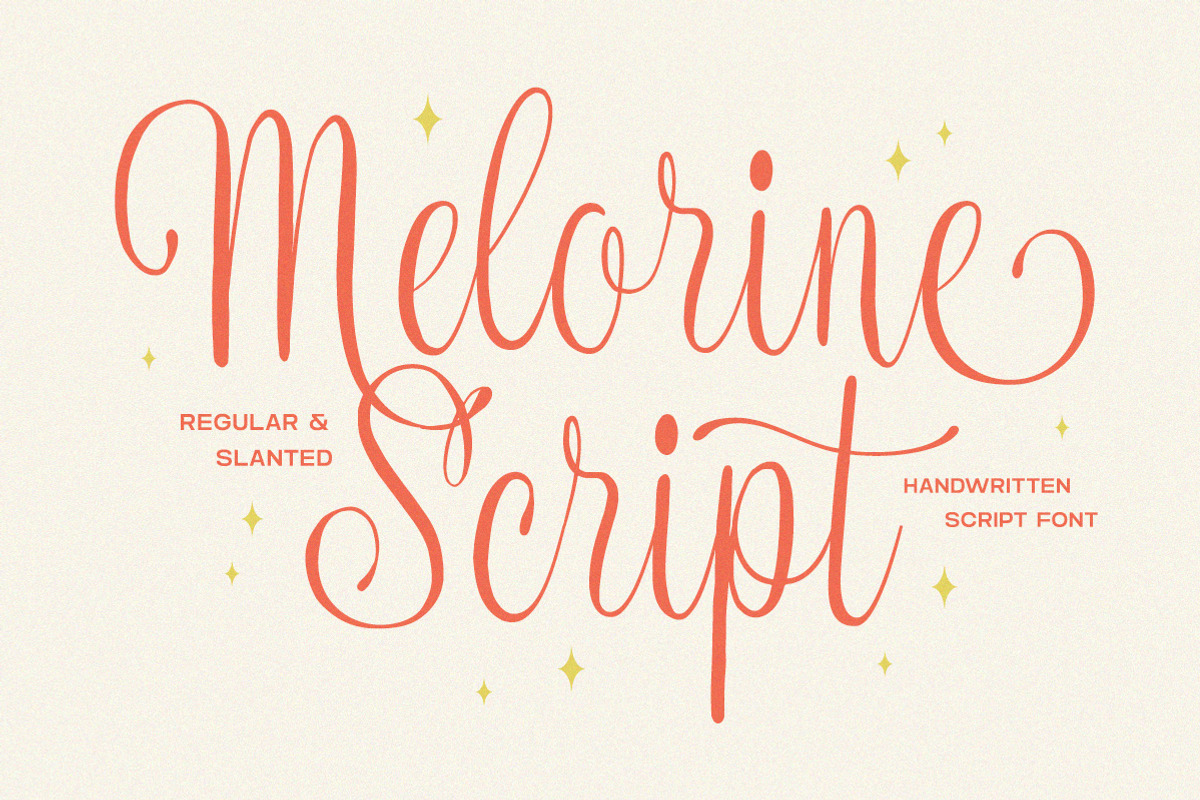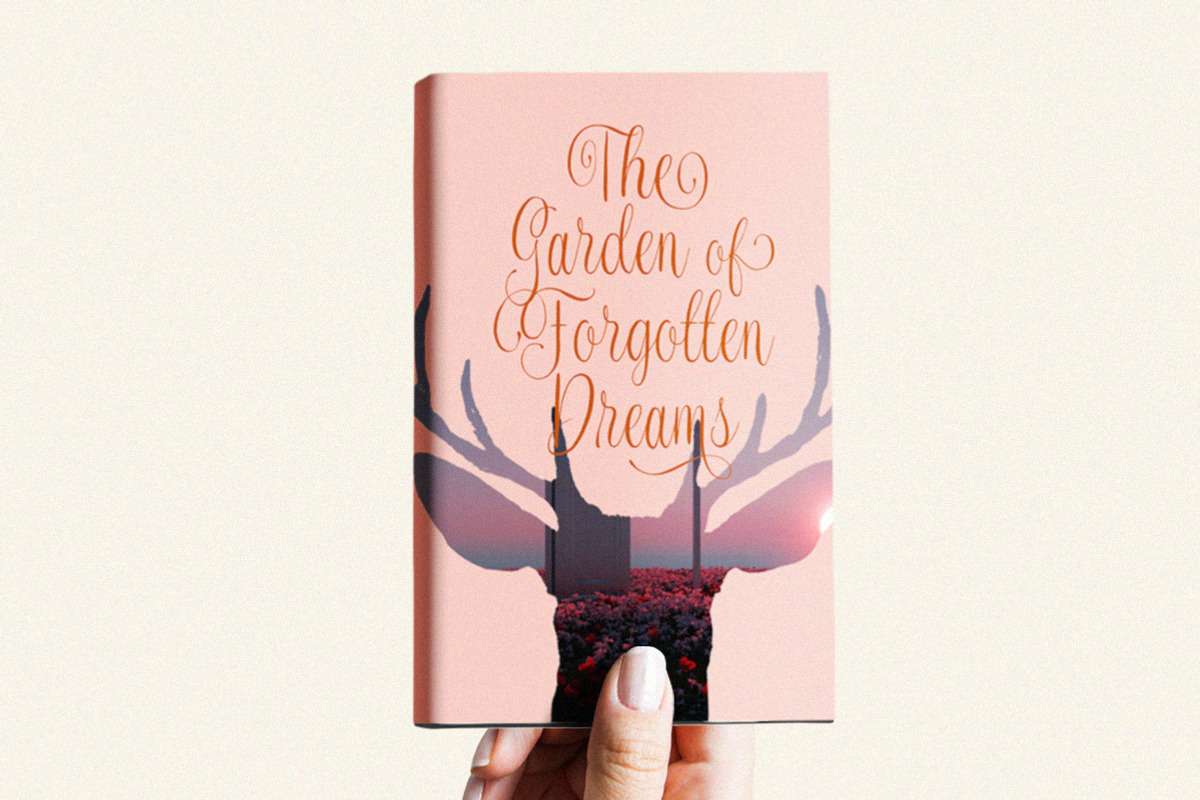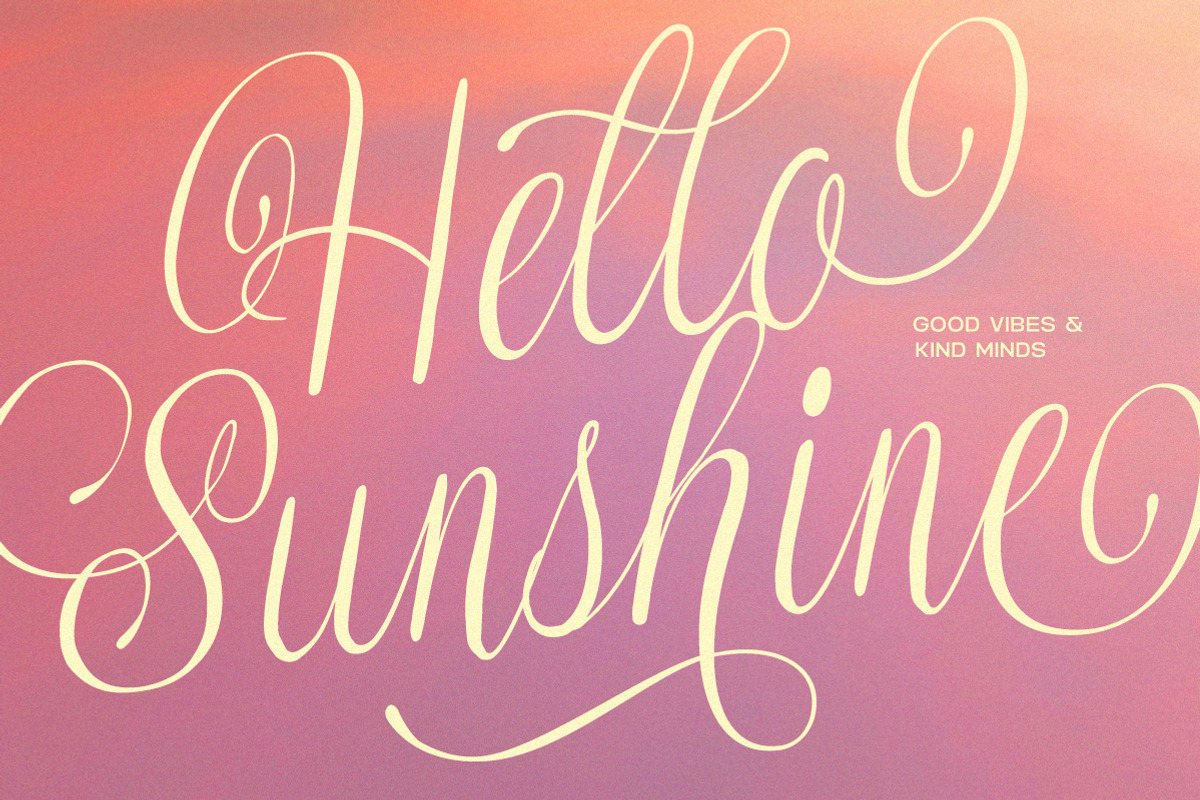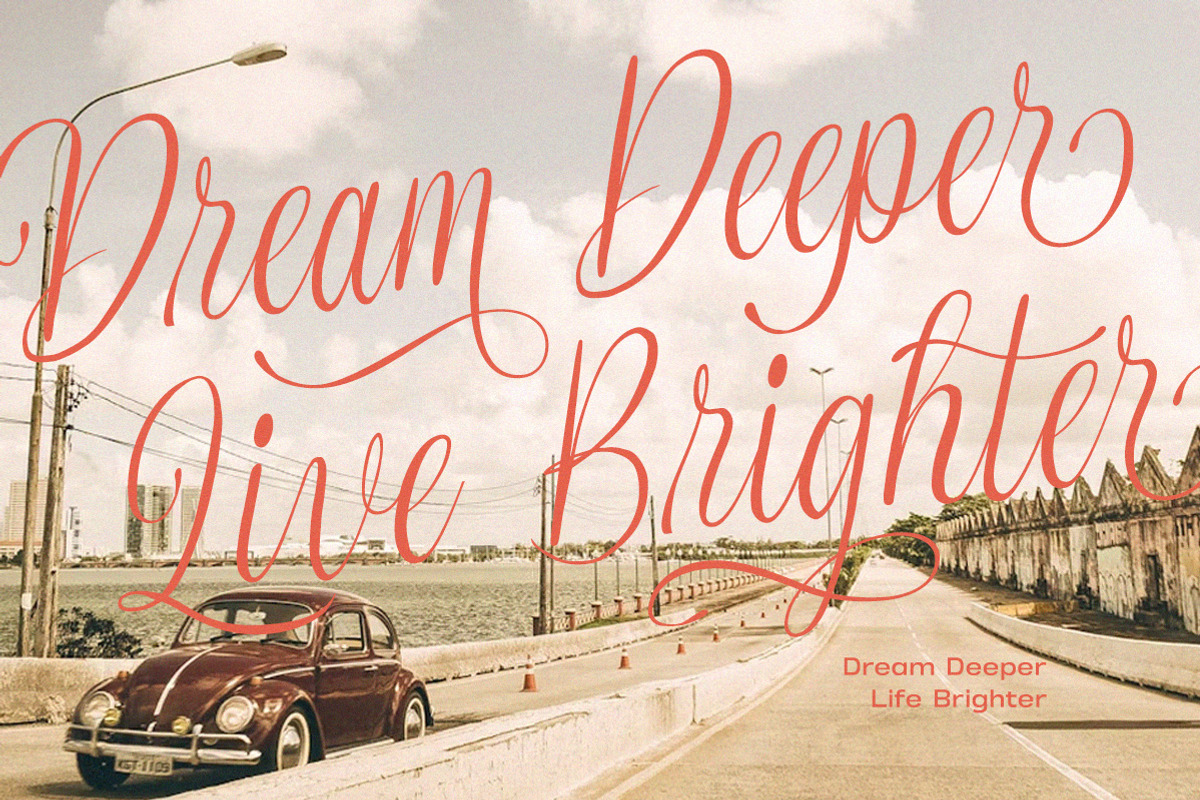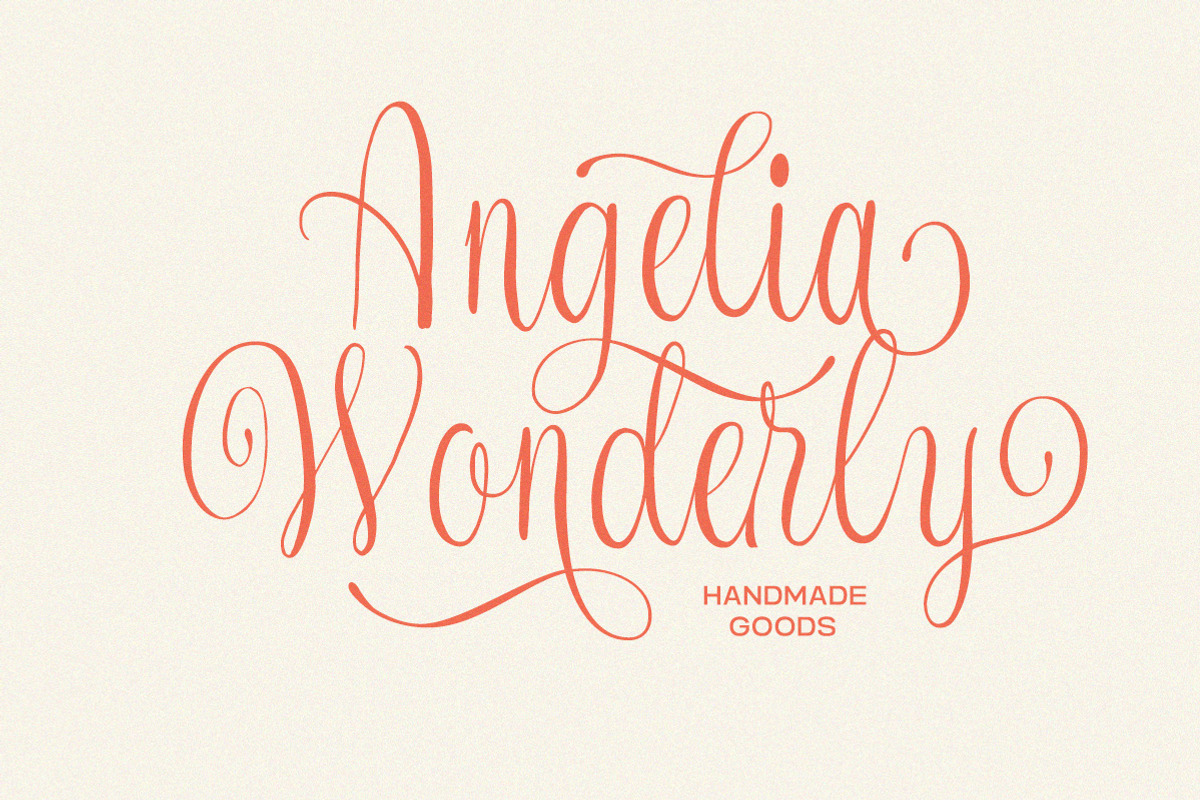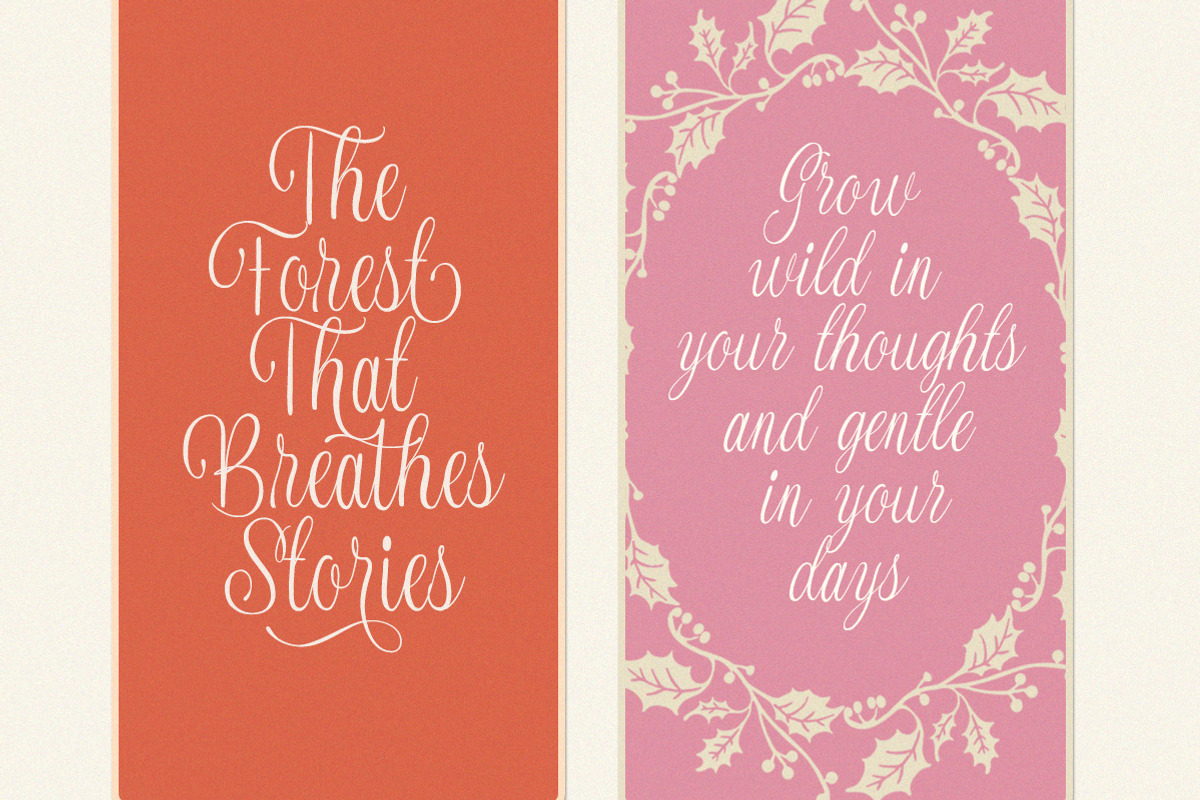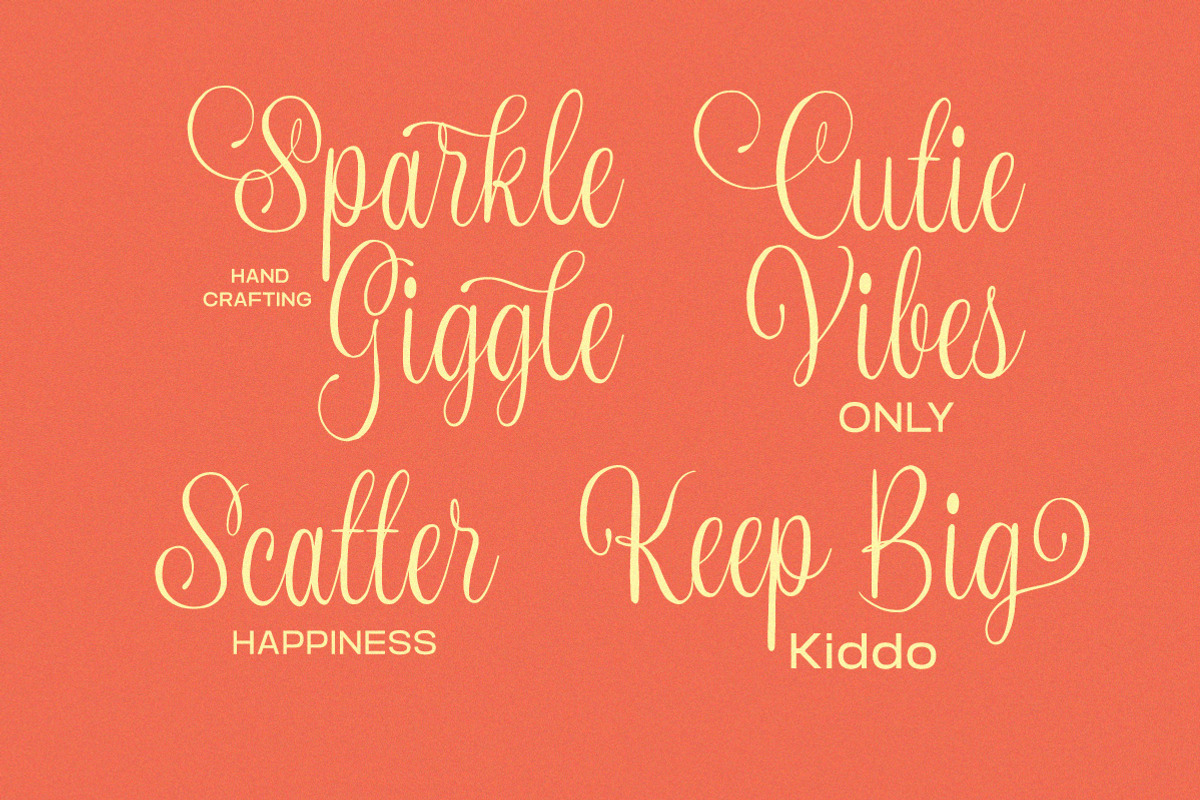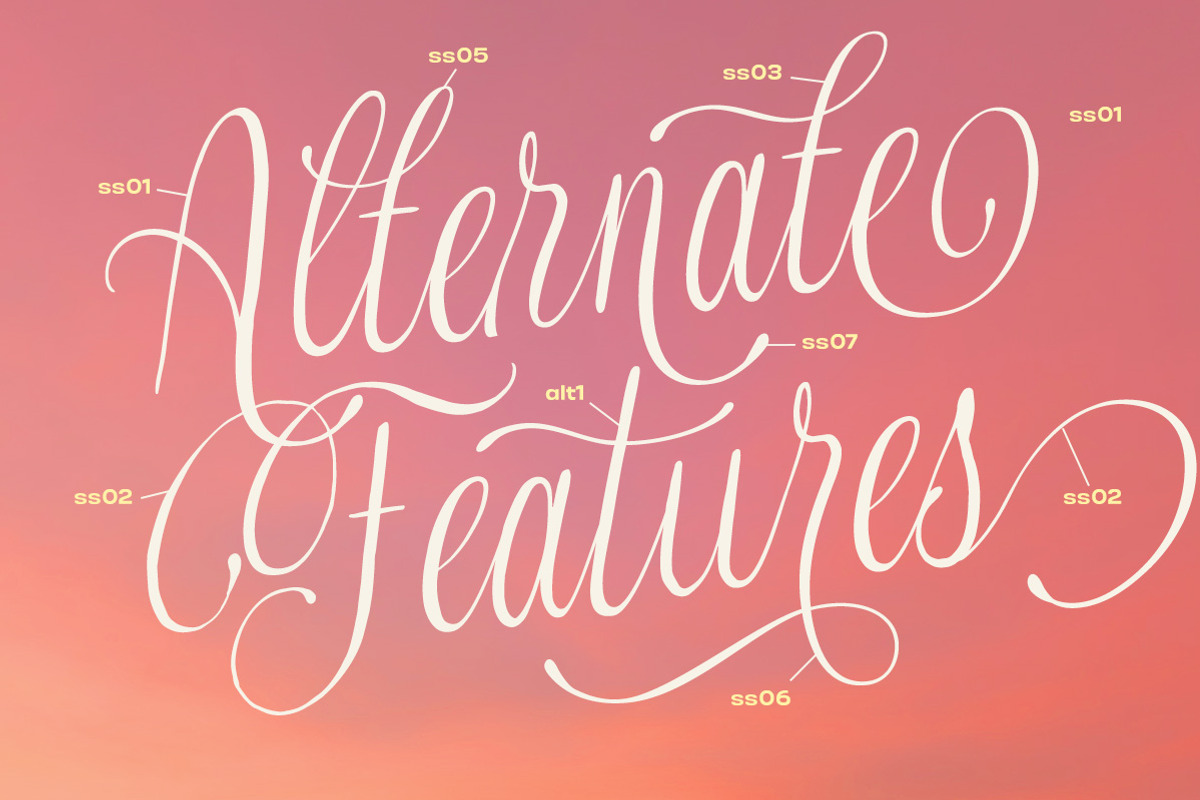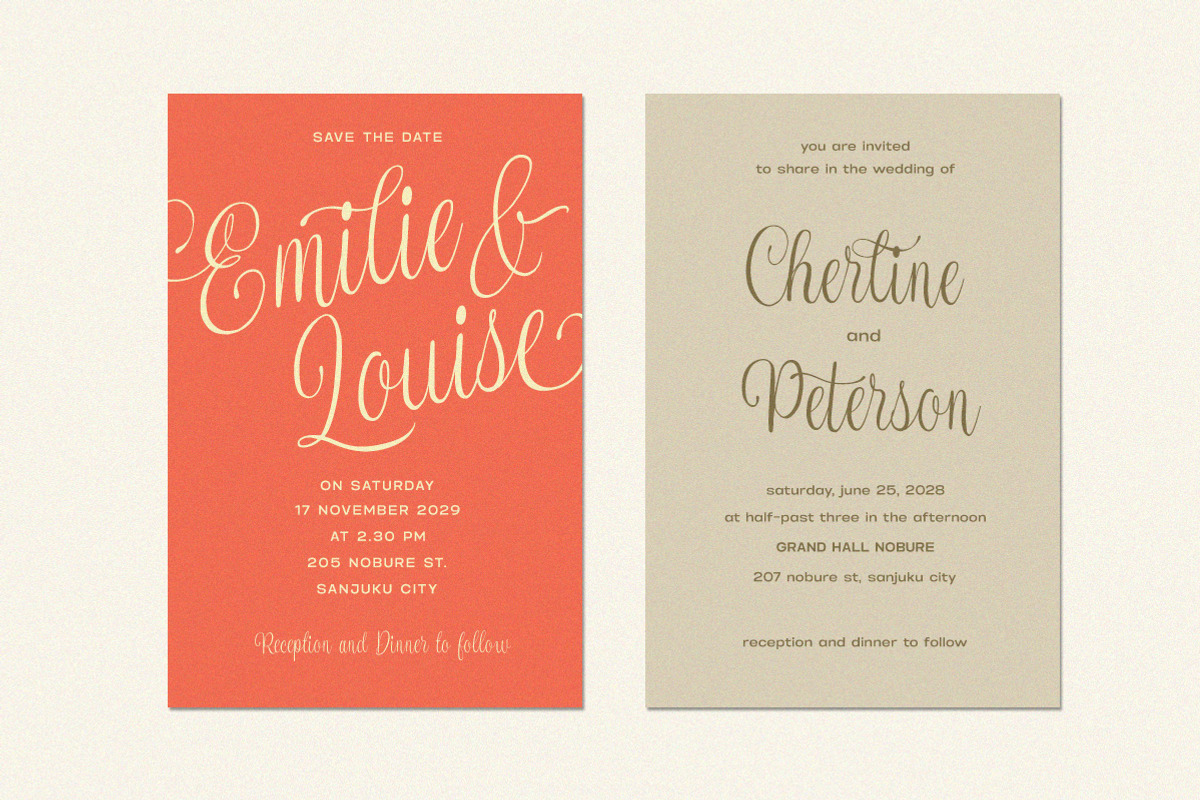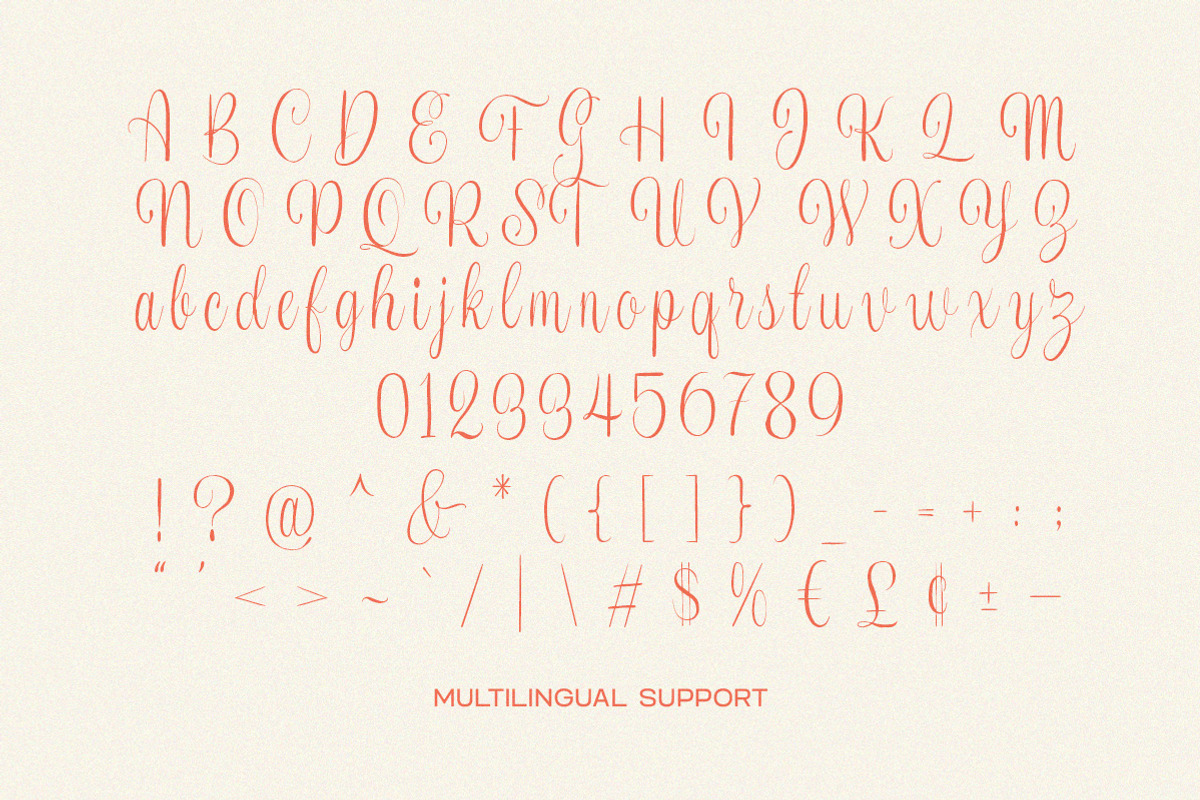
Melorine
Melorine Script is an elegant handwritten typeface designed with smooth curves, delicate swashes, and a soft feminine flow. Inspired by modern calligraphy and handcrafted lettering, Melorine Script brings a warm and personal touch to any design project.
This font comes in two styles — Regular and Slanted — allowing you to easily create natural handwriting looks, stylish signatures, or expressive display titles.
Every letter is crafted with attention to rhythm, balance, and beauty, making Melorine Script a perfect choice for wedding invitations, branding identities, crafts, quotes, packaging, and social media designs.
Let Melorine Script elevate your designs with its soft, flowing, and beautifully handwritten charm.